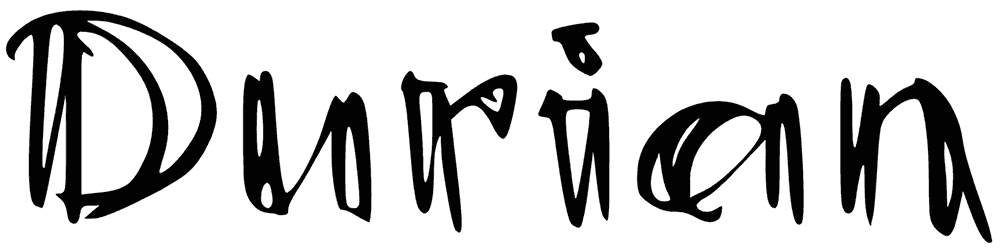
d Durian Font
Today we have d Durian, a messy, rough, and mysterious script font. It has a scrawl handwriting view, and letters are drawn absentmindedly. You might think that a character’s style is inspired by carving something sharp in a tree trunk, so they can be a very good choice if you want to induce a sense of horror and crime.
This trash font can also be used to design comic books, cartoons, posters, clothing, and Halloween concepts.